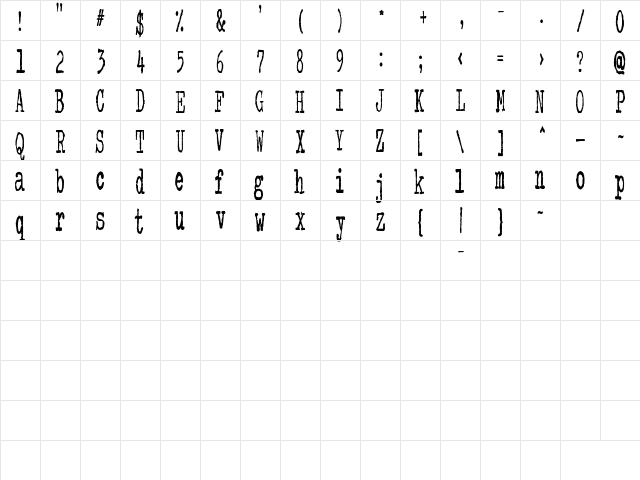
colour me purple Regular
| Designer | Kimberly Geswein |
Design Context for colour me purple Typeface
colour me purple takes a measured approach to typography — its balanced proportions and neutral character make it a reliable workhorse for both digital and print work.